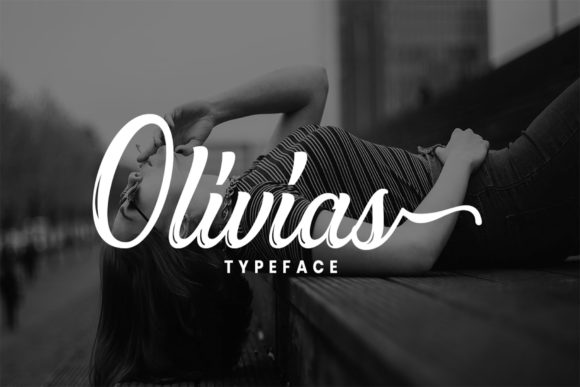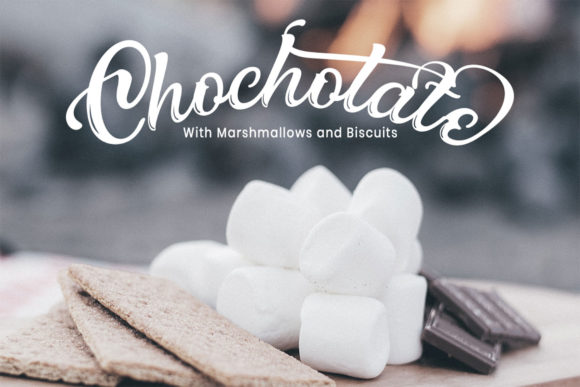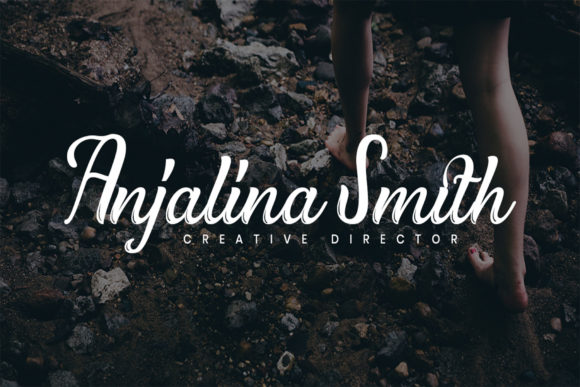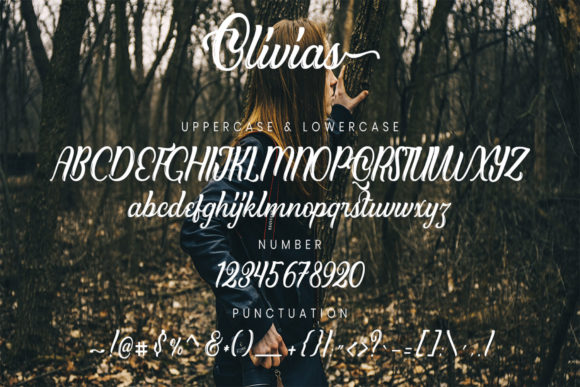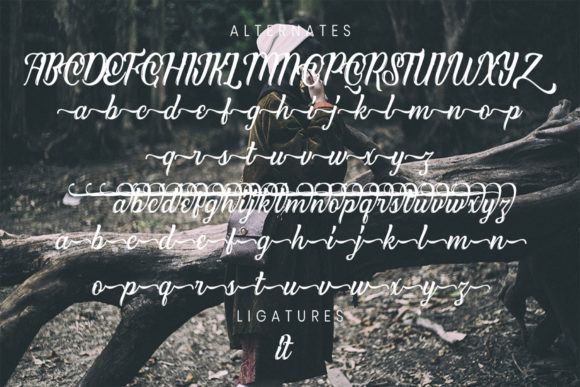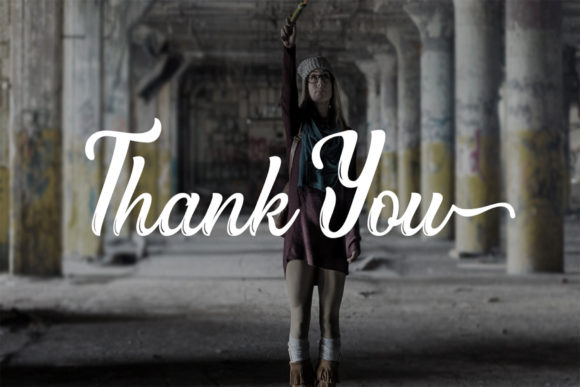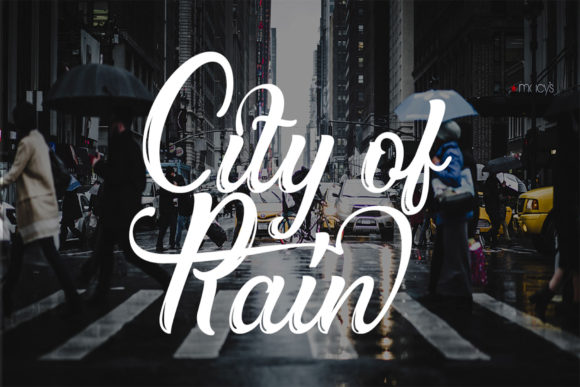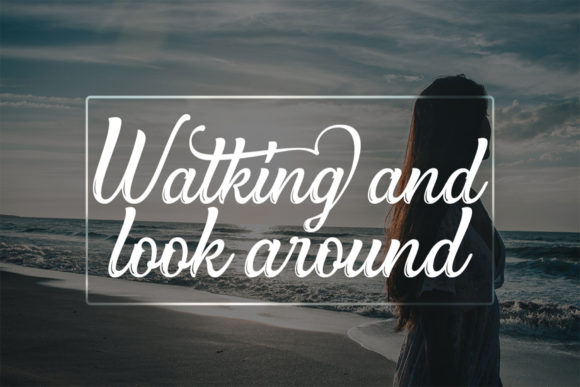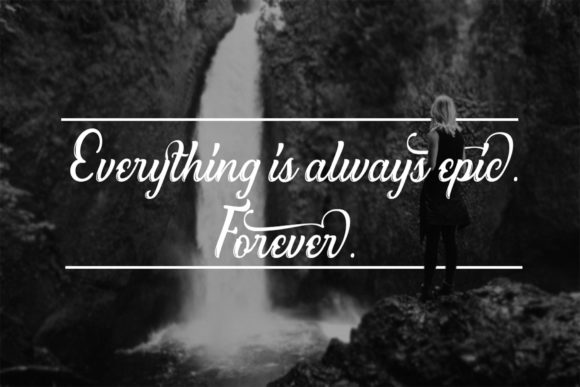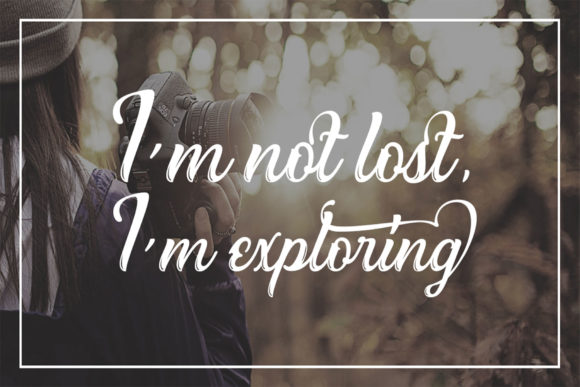
Olivias Font
About Olivias Font
Olivias features a light and elegant brush strokes that give this script a uniquely personal feel. It will effortlessly add an authentic feel to any design project.